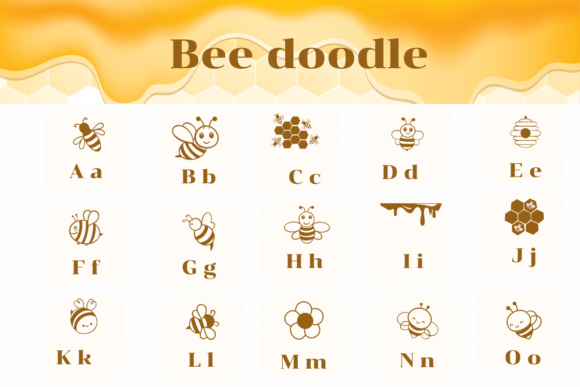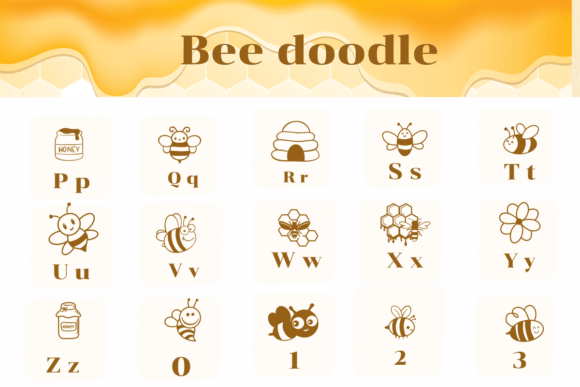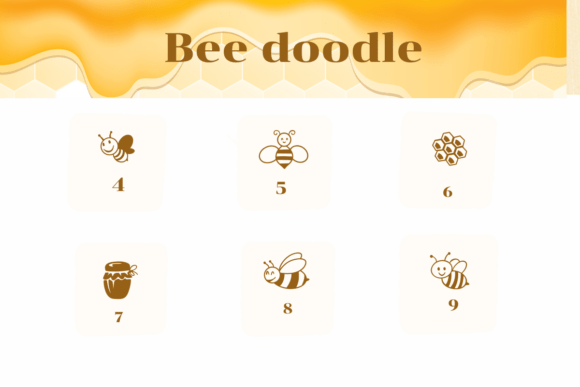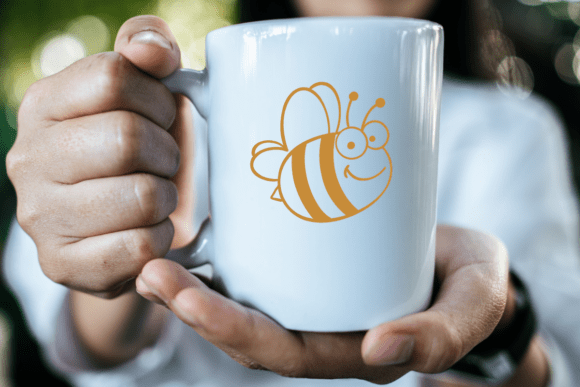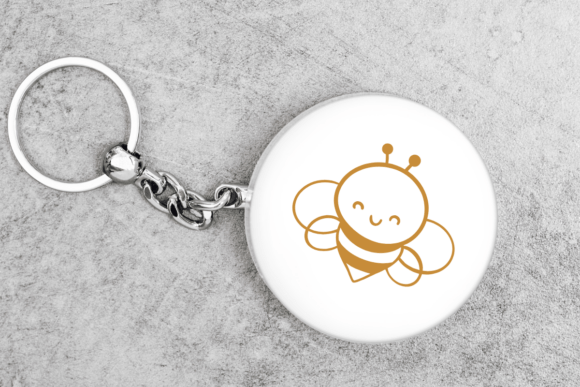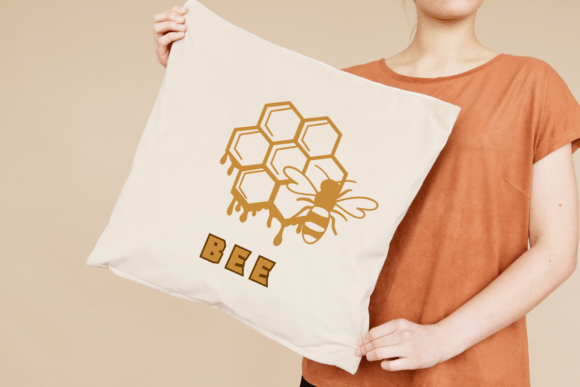
Bee Doodle Font: Add a Touch of Sweetness to Your Designs
Are you looking for a font that can bring a touch of whimsy and charm to your designs? Look no further than Bee Doodle Font! This delightful dingbat font is packed with adorable hand-drawn bees, honeycombs, hives, and more, making it perfect for a variety of creative projects.
What is Bee Doodle Font?
Bee Doodle Font is a charming dingbat font that features a collection of hand-drawn illustrations of bees, honeycombs, hives, and other nature-inspired elements. The font is designed to be easy to use and is perfect for adding a touch of personality to your designs. With Bee Doodle Font, you can create a wide range of projects, from kids’ crafts and baby shower invites to seasonal decorations and nature-themed designs.
Key Features of Bee Doodle Font
- Adorable hand-drawn illustrations: Bee Doodle Font features a collection of adorable hand-drawn illustrations of bees, honeycombs, hives, and more.
- Perfect for kids’ projects: Bee Doodle Font is perfect for kids’ crafts, including coloring pages, stationery, and stickers.
- Ideal for nature-themed designs: The font is also ideal for nature-themed designs, including seasonal decorations, garden signs, and more.
- Scalable: Bee Doodle Font is scalable, making it perfect for use on a variety of projects, from small stickers to large banners.
Uses for Bee Doodle Font
Bee Doodle Font is a versatile font that can be used for a wide range of creative projects, including:
- Kids’ crafts: Use Bee Doodle Font to create fun and educational crafts for kids, including coloring pages, stationery, and stickers.
- Baby shower invites: Add a touch of sweetness to your baby shower invites with Bee Doodle Font.
- Seasonal decorations: Use Bee Doodle Font to create seasonal decorations, including garden signs, banners, and more.
- Nature-themed designs: Bee Doodle Font is perfect for nature-themed designs, including garden signs, wildlife posters, and more.
- Stationery: Use Bee Doodle Font to create adorable stationery, including notecards, stickers, and more.
Tips for Using Bee Doodle Font
Here are a few tips for using Bee Doodle Font:
- Experiment with different colors: Bee Doodle Font looks great in a variety of colors, so don’t be afraid to experiment and find the perfect color scheme for your project.
- Mix and match illustrations: Bee Doodle Font features a range of illustrations, so try mixing and matching them to create a unique and eye-catching design.
- Use it with other fonts: Bee Doodle Font pairs well with other fonts, so try using it with a bold font to create a fun and playful design.
Bee Doodle Font is a charming dingbat font that is perfect for adding a touch of sweetness to your designs. With its adorable hand-drawn illustrations and easy-to-use design, it’s perfect for a wide range of creative projects, from kids’ crafts and baby shower invites to seasonal decorations and nature-themed designs. So why not give Bee Doodle Font a try and see how it can bring a buzz of sweetness to your designs?